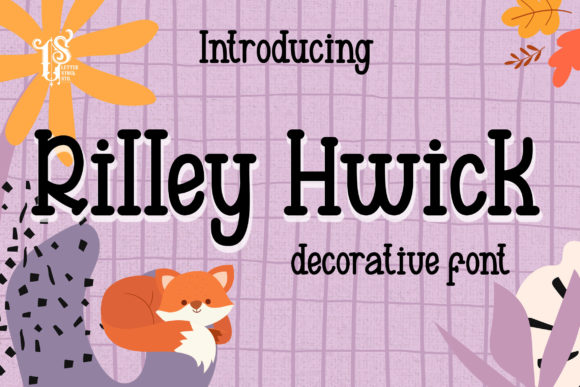
Embark on a typographic adventure with Rilley Hwick, a captivating serif font that exudes charm and playfulness. Handcrafted with meticulous care, this font captures the essence of nature's spontaneity, adding a touch of organic elegance to your creative projects.
With Rilley Hwick, your words will leap off the page, whether it's a captivating title, a distinctive brand identity, or a logotype that demands attention. Its unique style dances between tradition and modernity, making it the perfect choice for those seeking a font that stands out from the crowd.
Imagine your brand adorned with Rilley Hwick's graceful curves and playful serifs. Picture your product labels whispering tales of quality and distinction. Envision your invitations exuding a timeless charm that captivates hearts. With Rilley Hwick, your designs will leave a lasting impression, etching themselves into the minds of your audience.
More than just a font, Rilley Hwick is a versatile chameleon, adapting seamlessly to a myriad of design landscapes. Its legibility and visual appeal shine in logotypes, labels, decorative lettering, playful design elements, product packaging, invitation titles, advertising, and beyond.
Rilley Hwick is not just a tool; it's an extension of your creativity, a gateway to a world where imagination takes center stage. Embrace its allure, let your words dance, and watch as your designs transform into masterpieces that captivate and enchant.
Don't settle for ordinary fonts. Choose Rilley Hwick, the font that ignites inspiration and leaves an indelible mark on the hearts of your audience. Unleash your creativity and embark on a typographic expedition that will redefine your design aesthetic.